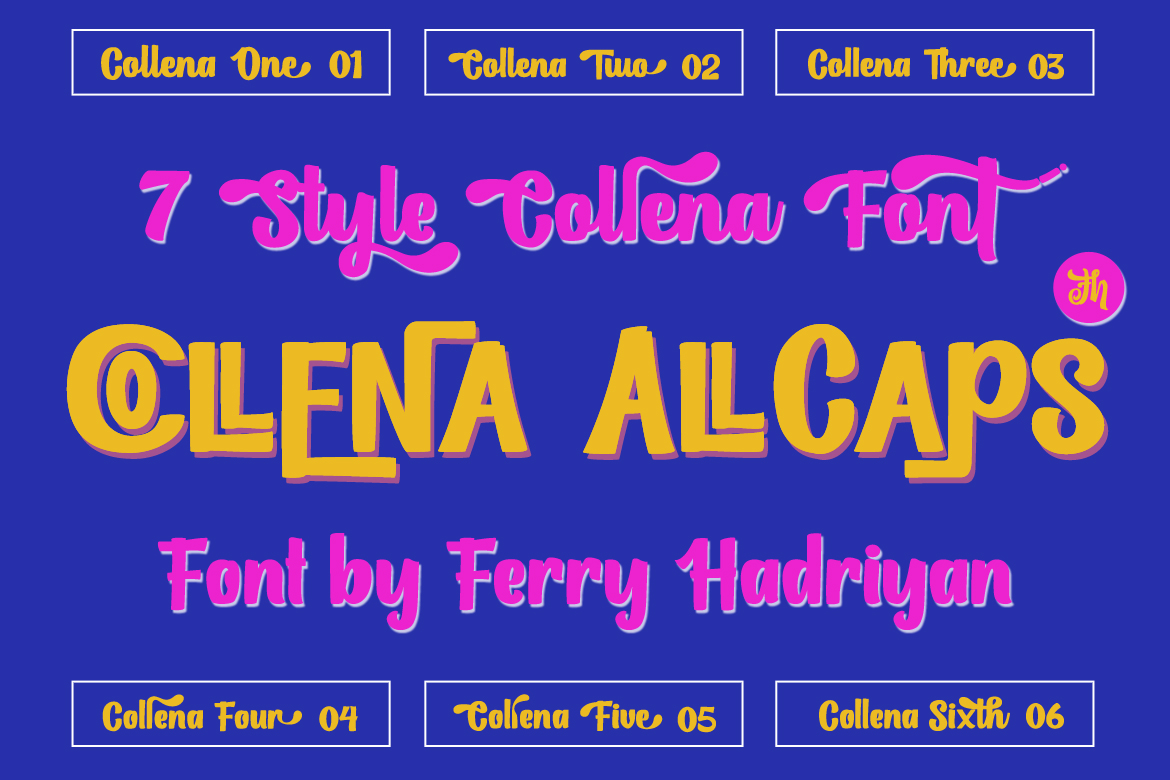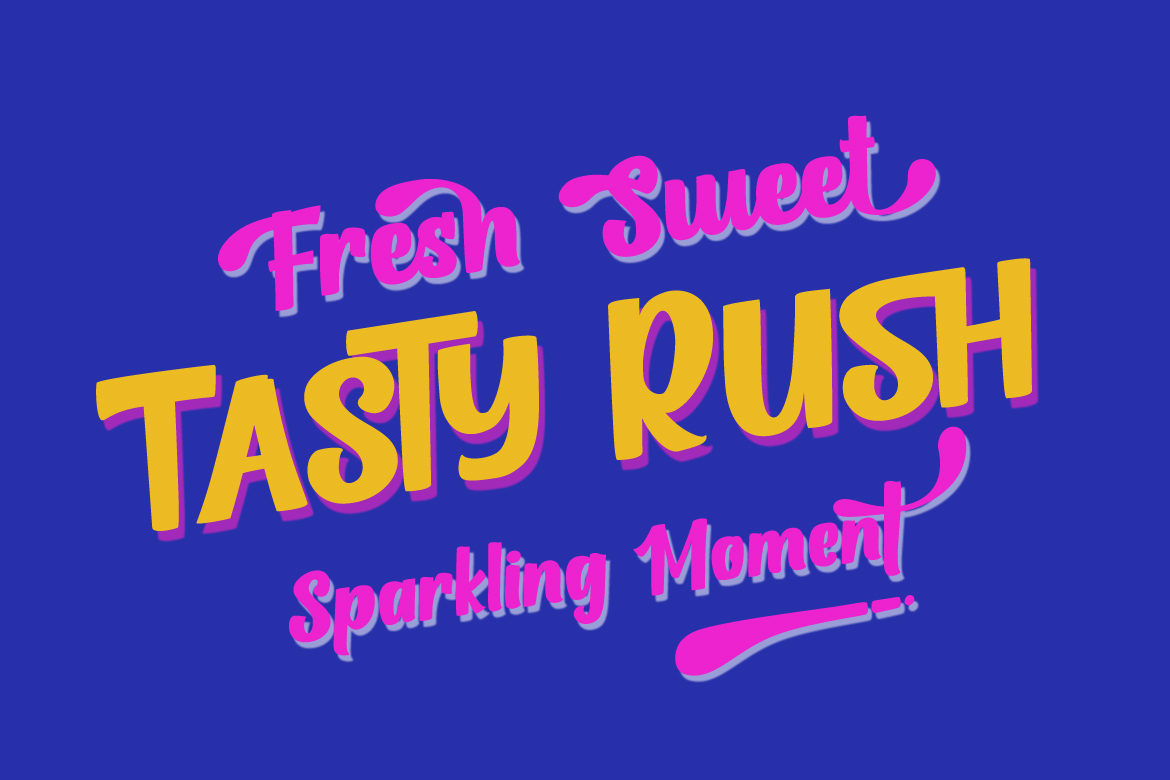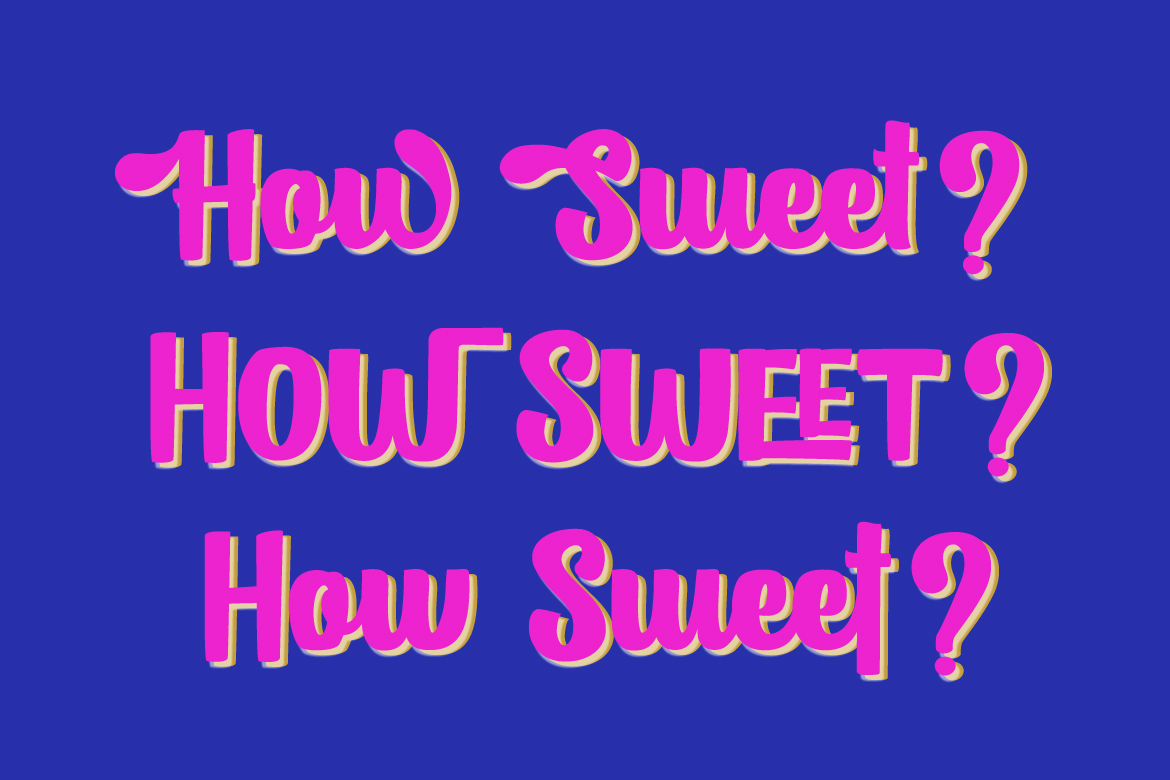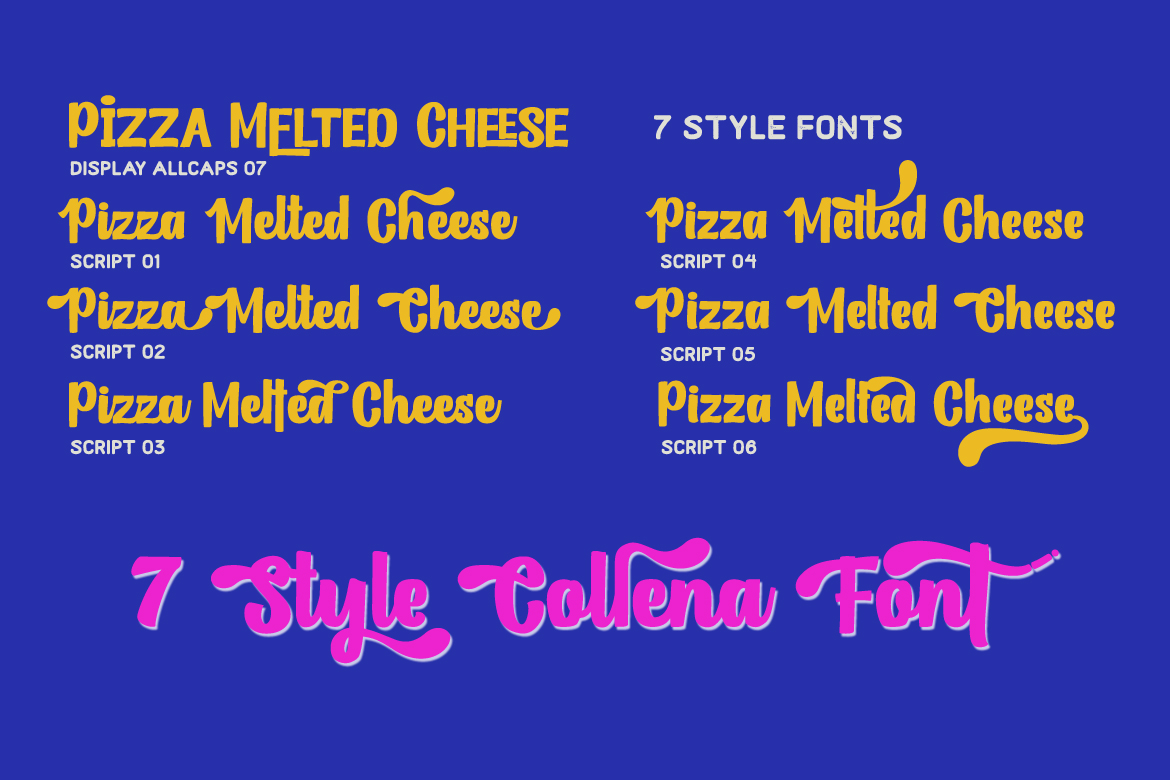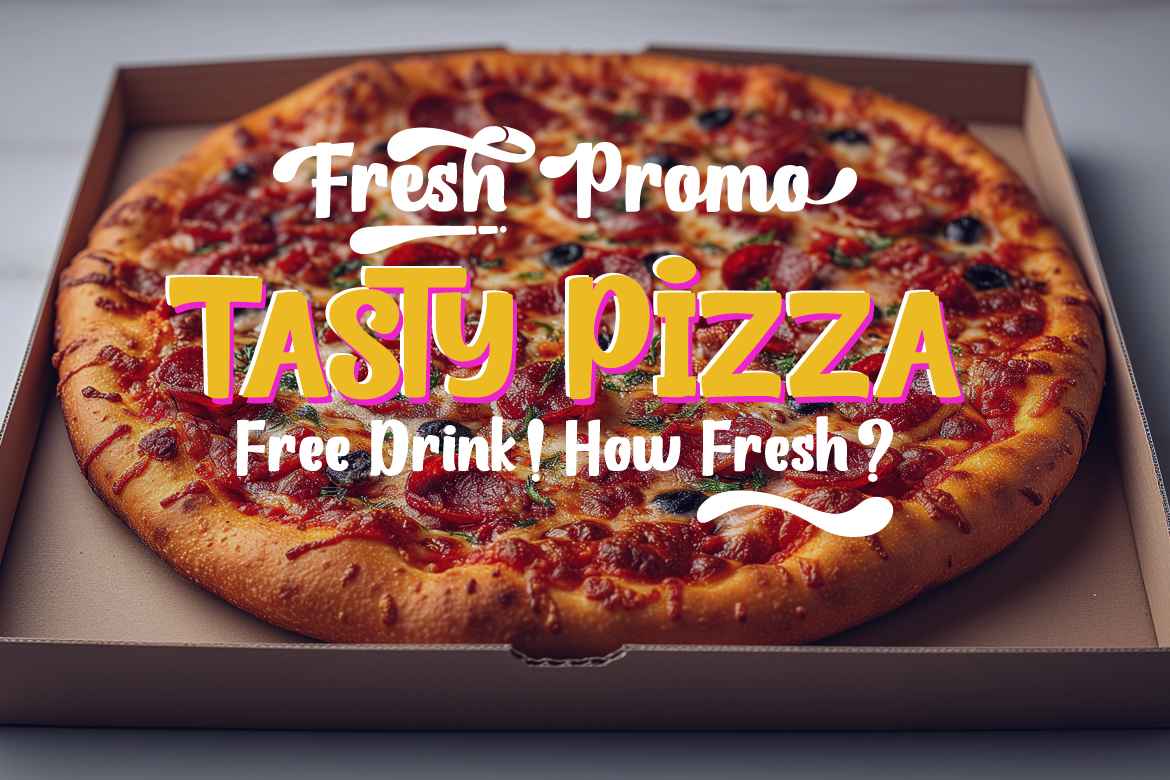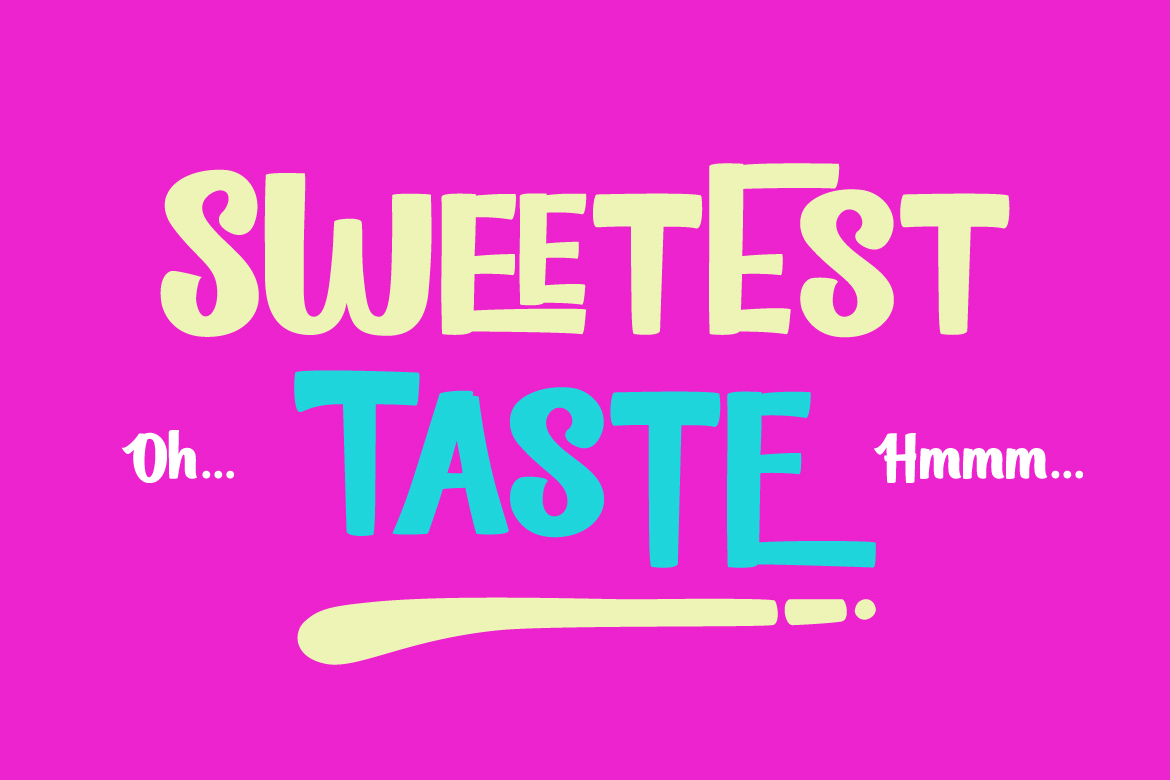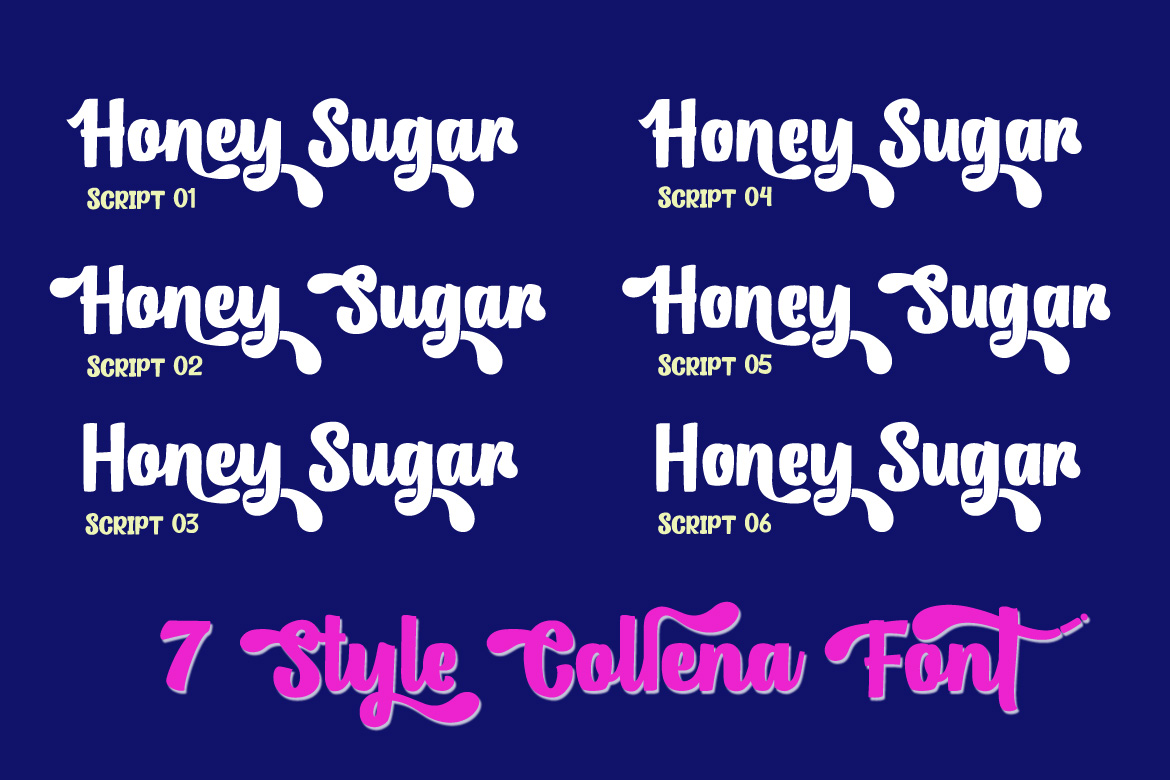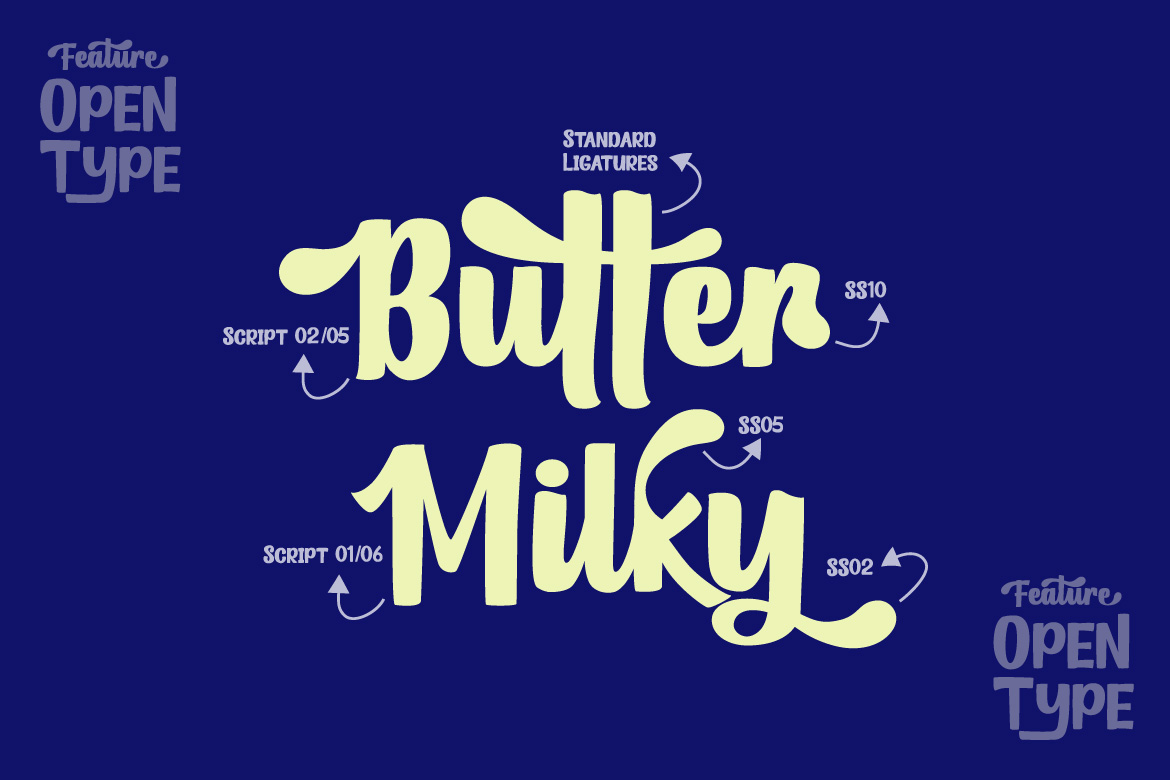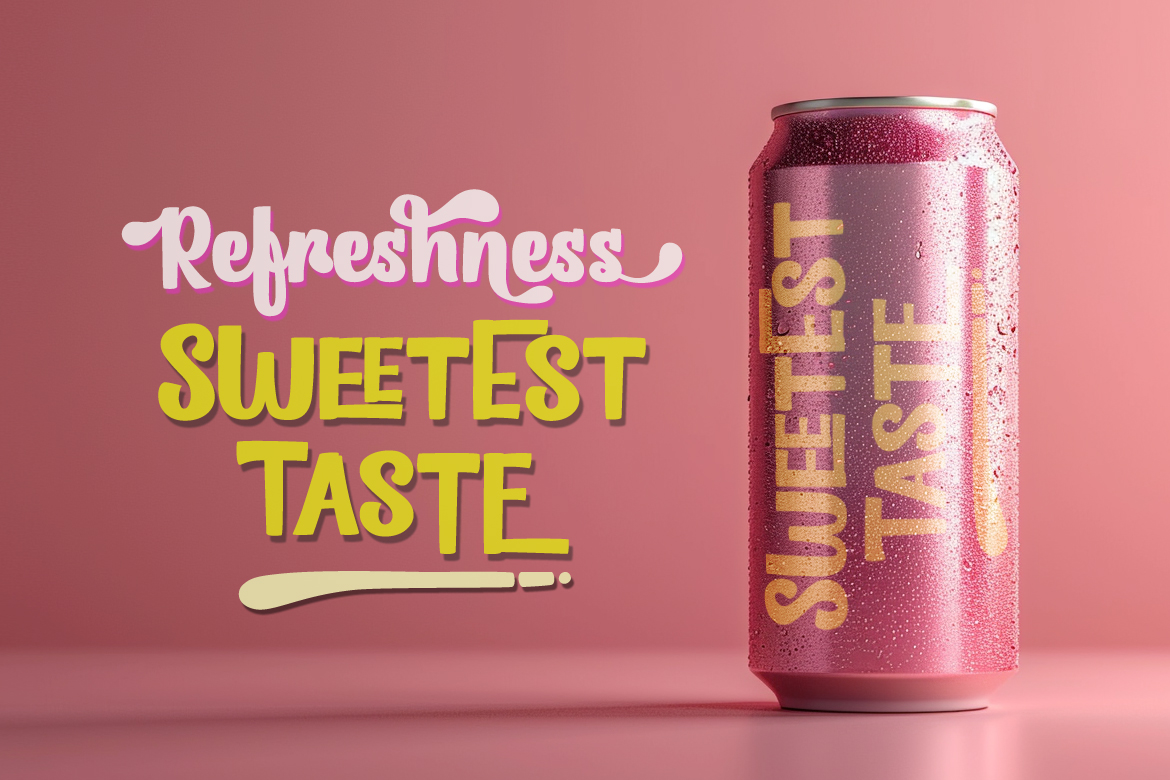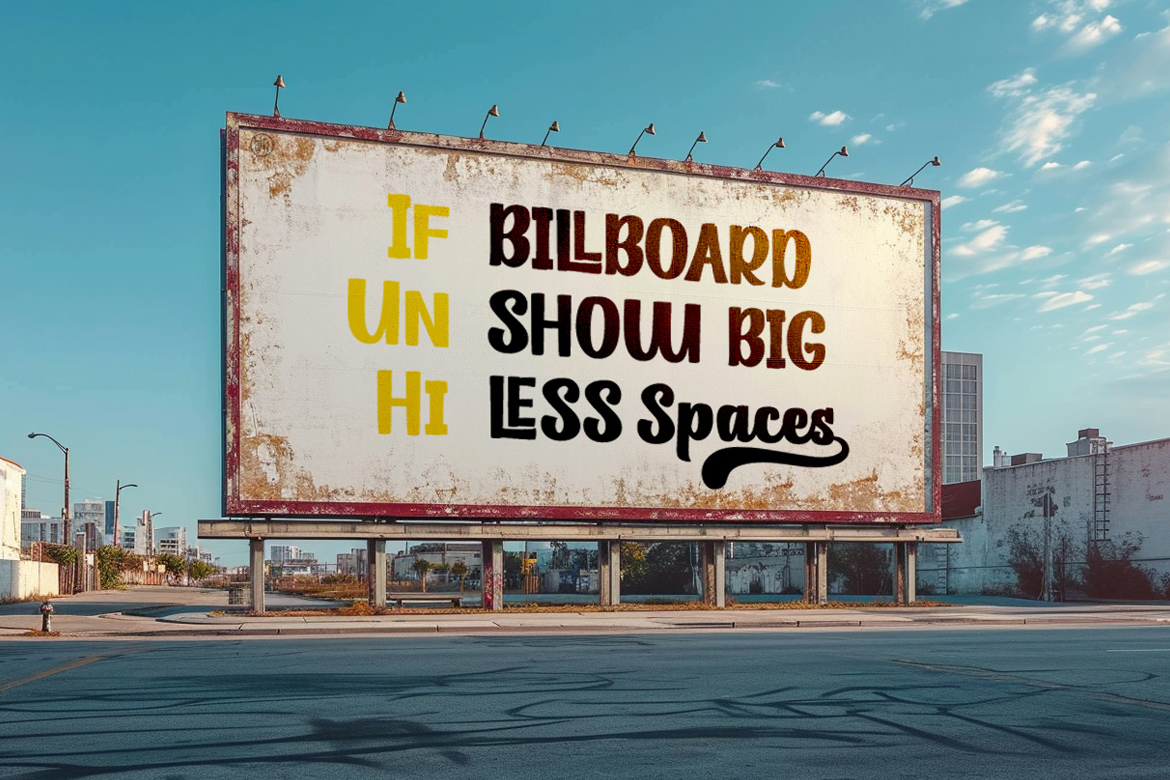
FH Collena – Font Family
FH Collena is a vintage script and displays font with a fun retro style, including 6 font scripts and 1 font display (All Caps), with swashes on the OpenType feature of the font.
– All Standard Characters, Symbols, Multilanguage, Ligatures, Stylistic sets, and Swashes.
– Unique style fonts